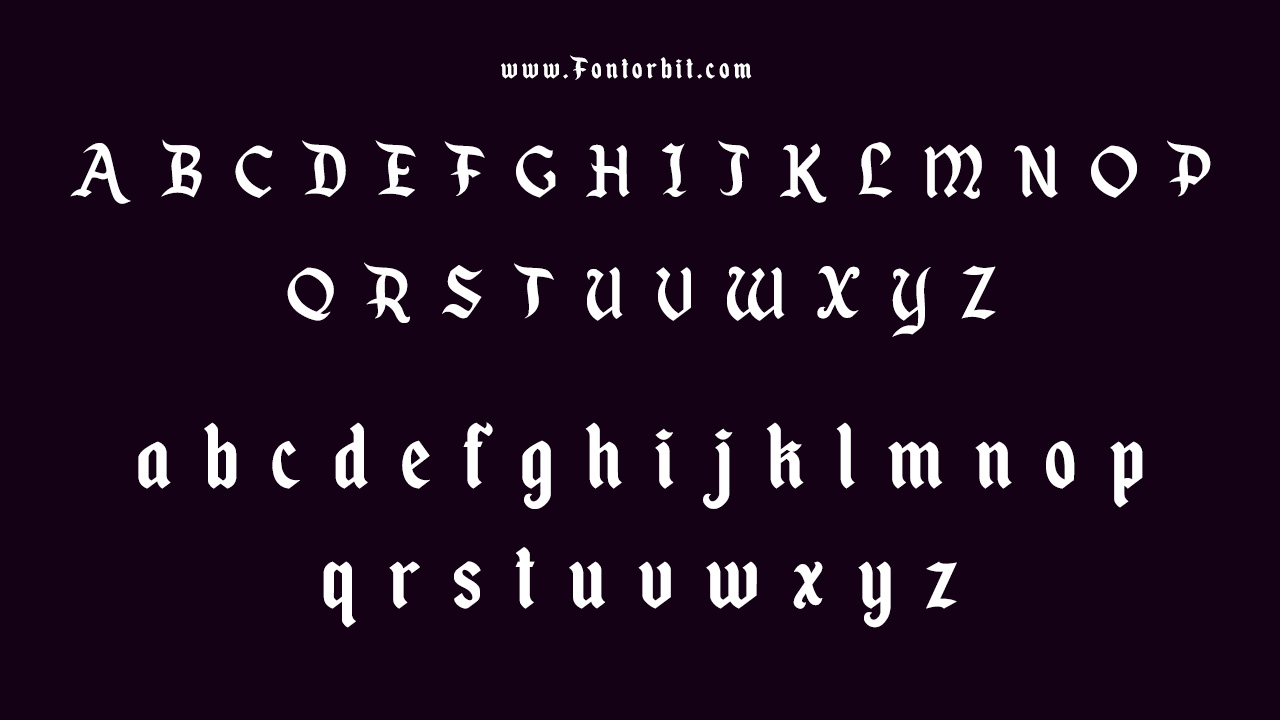
Enchanted Land is a whimsical, Gothic-inspired typeface designed by Sharkshock. Known for its high x-height and medieval, blackletter style, Enchanted Land brings a sense of fantasy and playfulness to various design projects. It is available for free for personal use.
Enchanted Land’s design is characterized by its bold and decorative style, making it a standout choice for display purposes. The font family includes:
Enchanted Land’s distinctive medieval style makes it a perfect choice for projects that aim to capture a sense of fantasy or whimsy. Its eye-catching design is suitable for a wide range of applications where a unique and engaging look is desired.
- Movie Projects
- Children’s Projects
- Animations
- Thumbnails
- Logos for YouTube Channels
- Business Projects
- Advertisements
- Product Packaging
- Labeling
- Script Writing
- Web Designing
- App Development
- Invitation Cards
Enchanted Land Font is often seen in contexts that benefit from a fantasy or Gothic aesthetic. Its bold and decorative style adds a captivating and thematic feel to various forms of visual communication and creative expression.
Enchanted Land Font embodies a whimsical, medieval style that adds a unique touch to various design projects. While it may not be suited for formal documents, it excels in applications where a distinctive and engaging look is desired. Pair Enchanted Land Font with simple, modern fonts to create a compelling contrast and enhance its visual impact.
2.What Makes Enchanted Land Font Suitable For Fantasy-Themed Projects?
The font’s Gothic and medieval characteristics, along with its high x-height and decorative design, make it ideal for projects that want to convey a sense of fantasy, whimsy, or historical allure.
3.How To Create A Font Pairing With Enchanted Land Font And A Sans-Serif Font?
Pair Enchanted Land Font with a simple sans-serif font like Arial or Helvetica for body text to create a visually balanced design, with Enchanted Land used for headings or decorative elements.
4.What Are The Best Contexts For Using Enchanted Land Font?
Best contexts include fantasy book covers, themed invitations, animated movie posters, and any project that benefits from a medieval or whimsical aesthetic.
5.How To Create A Font Combination With Enchanted Land Font And Script Fonts?
Combine Enchanted Land Font with script fonts by using Enchanted Land for headings or main text, and a flowing script font for accent text or decorative elements to add elegance and a hand-crafted feel.
6.Enchanted Land Font For Graphic Design Projects?
Use Enchanted Land Font in graphic design projects that require a fantasy or medieval theme, such as video game interfaces, promotional posters, and themed merchandise.